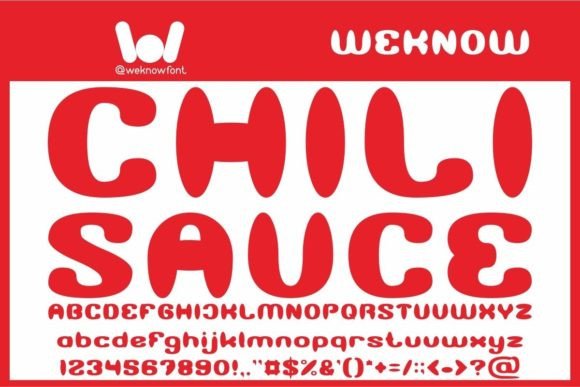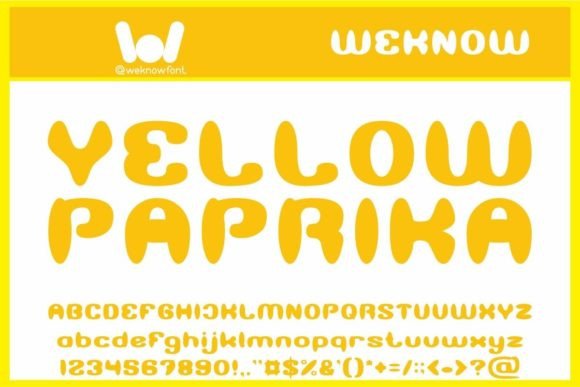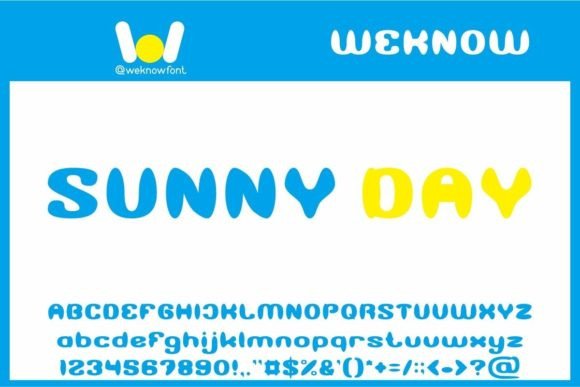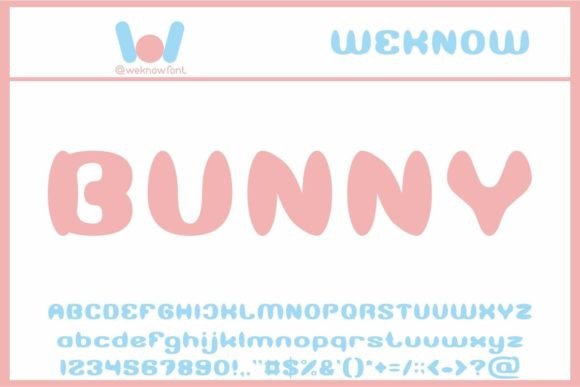
Introduction to Cayenne Pepper Font
Cayenne Pepper is a trendy and cool display font with a strong and expressive character.
Its versatility will make it suitable for a wide pool of projects that need a modern vibe .